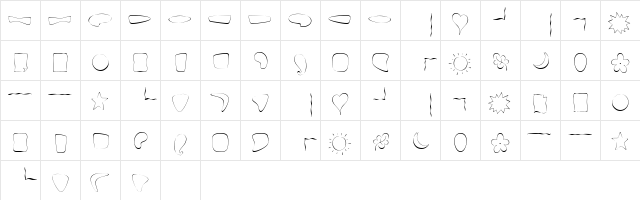
Fontesque OrnamentsFine
Design Context for Fontesque Typeface
Fontesque is built around its visual character rather than neutral utility — its distinctive forms are designed to make an impression at display sizes.
Font Pairing: Pair with a clean neutral sans-serif for body copy to let Fontesque's character lead without overwhelming the composition.
Pro Tip: Treat Fontesque as the centrepiece of your typographic hierarchy. One strong heading set in a decorative face can carry an entire layout.